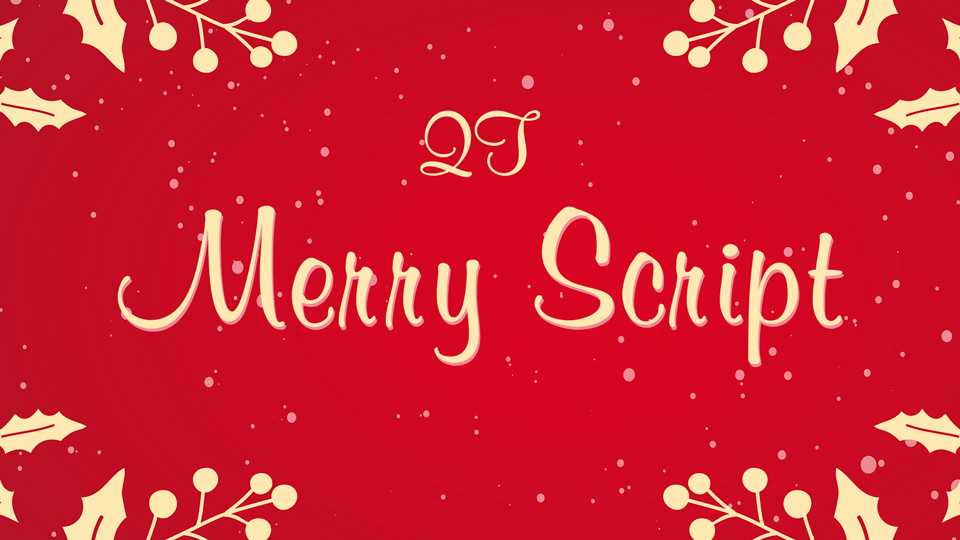
Download QT Merry Script font, an elegantly simple handwritten typeface. Merry Script perfectly fits for Christmas and holiday designs, invitations, letters, cards, wedding and other beautiful projects.